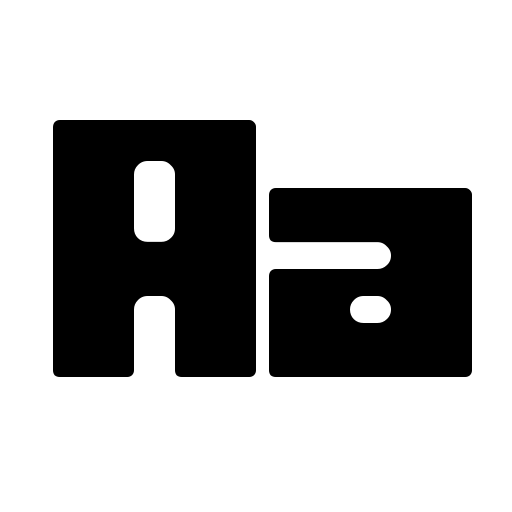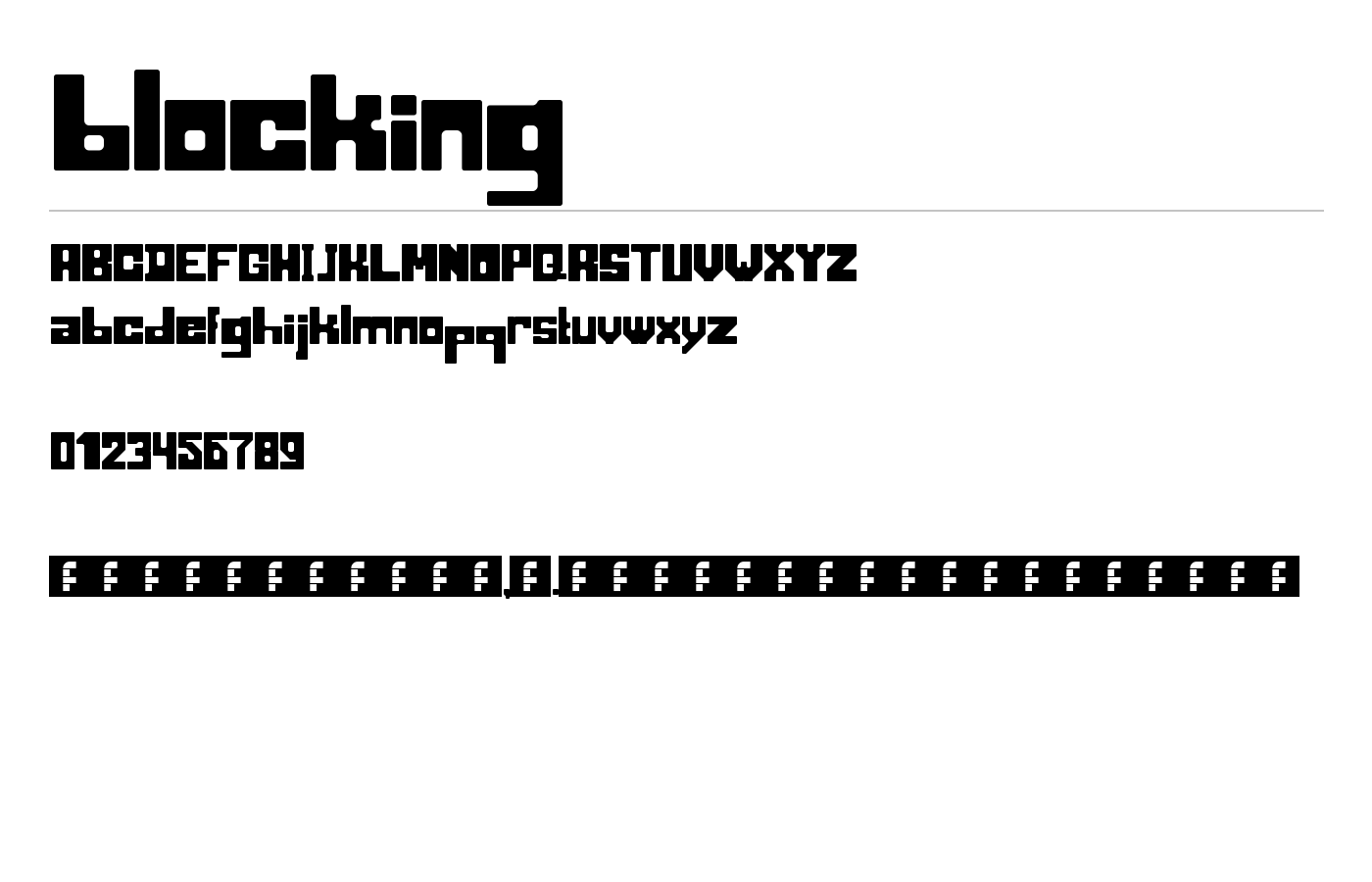
Blocking Font is a bold, geometric sans serif with a strong, blocky presence and minimal stroke contrast. Its wide, squared letterforms and uniform thickness create a solid, modern look perfect for attention-grabbing headlines, logos, and display uses where clarity and impact are key. This font’s heavy, technical style conveys confidence and stability, making it great for branding with an industrial or futuristic vibe.
blocking Font
About blocking Font